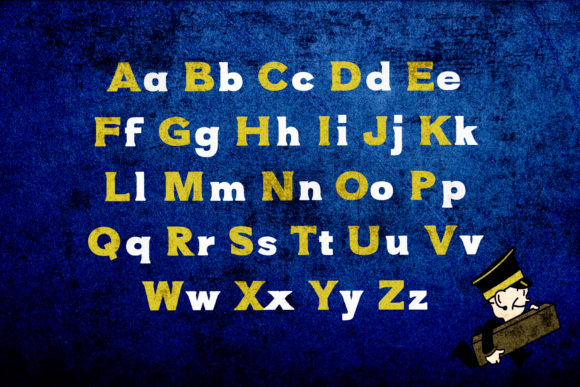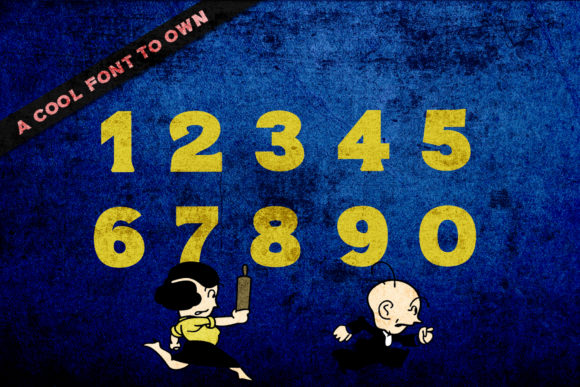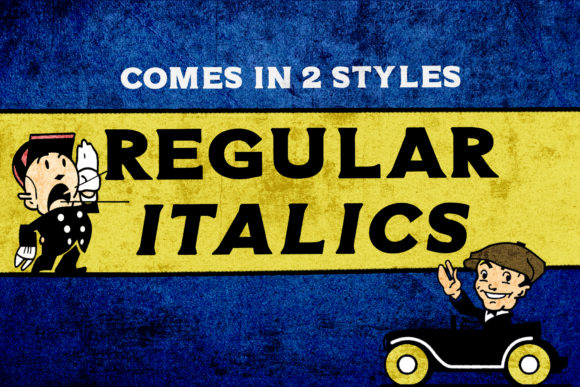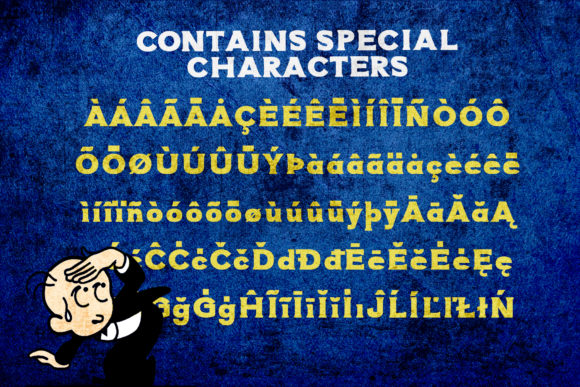
Introducing Atomic Font: The Ultimate Retro Serif Font for Designers
Are you a designer or crafter looking for a unique and extraordinary font to add a retro vibe to your design ideas? Look no further than Atomic Font, a passionately handcrafted serif font that is sure to elevate your creative projects. In this article, we’ll dive into the features and benefits of Atomic Font, and explore how it can be used to add a touch of nostalgia and sophistication to your designs.
The Story Behind Atomic Font
Atomic Font is a carefully crafted font that is inspired by the classic typography of the past. Its creator, a skilled typographer, has poured their heart and soul into designing a font that is both unique and timeless. With a focus on detail and a passion for typography, Atomic Font is the perfect choice for designers who want to add a touch of retro charm to their work.
Key Features of Atomic Font
So, what makes Atomic Font so special? Here are just a few of its key features:
- Unique and Extraordinary Design: Atomic Font boasts a distinctive serif design that is unlike any other font on the market. Its elegant lines and classic proportions make it perfect for a wide range of design applications.
- Comprehensive Character Set: Atomic Font contains a comprehensive set of characters, including uppercase and lowercase letters, numbers, and special characters. This means you can use it for a wide range of projects, from logos and headings to body text and more.
- Retro Vibe: Atomic Font has a distinctly retro feel that is sure to add a touch of nostalgia to your designs. Whether you’re creating a vintage-inspired logo or a modern design with a retro twist, Atomic Font is the perfect choice.
Using Atomic Font in Your Designs
So, how can you use Atomic Font in your designs? The possibilities are endless! Here are a few ideas to get you started:
- Logos and Branding: Atomic Font is perfect for creating unique and memorable logos that stand out from the crowd. Its elegant design and retro vibe make it ideal for brands that want to convey a sense of sophistication and nostalgia.
- Headings and Titles: Use Atomic Font to add a touch of elegance and sophistication to your headings and titles. Its classic proportions and serif design make it perfect for creating eye-catching headlines that draw attention.
- Body Text: Atomic Font is also suitable for use as a body text font, particularly for designs that require a more formal or traditional look. Its clear and legible design makes it easy to read, even at smaller font sizes.
Benefits of Using Atomic Font
So, why should you choose Atomic Font for your design projects? Here are just a few benefits of using this unique and extraordinary font:
- Stand Out from the Crowd: Atomic Font is a truly unique font that will help your designs stand out from the crowd. Its distinctive design and retro vibe make it perfect for designers who want to create something truly memorable.
- Versatility: Atomic Font is a versatile font that can be used for a wide range of design applications, from logos and headings to body text and more.
- Elegance and Sophistication: Atomic Font adds a touch of elegance and sophistication to any design. Its classic proportions and serif design make it perfect for designers who want to create high-end designs that exude luxury and refinement.
In conclusion, Atomic Font is a unique and extraordinary serif font that is perfect for designers and crafters who want to add a retro vibe to their design ideas. With its comprehensive character set, elegant design, and retro charm, Atomic Font is the perfect choice for a wide range of design applications. Whether you’re creating logos, headings, or body text, Atomic Font is sure to elevate your designs and help you stand out from the crowd.